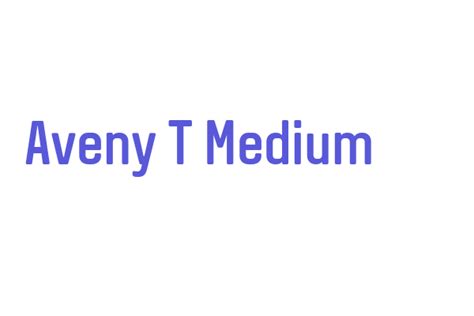
What is Aveny T Regular?
Let’s start by understanding what makes Aveny T Regular such a sought-after font. Aveny T Regular is a modern sans-serif typeface known for its clean lines, balanced proportions, and excellent readability. It’s a versatile font that works well in a variety of design applications, including branding, web design, and print materials. Its simplicity gives it a contemporary feel, making it a favorite among designers who aim for a minimalist yet impactful aesthetic. The font’s geometric structure ensures clarity and legibility, making it suitable for both headlines and body text. Aveny T Regular stands out because of its neutral yet sophisticated appearance, which allows it to blend seamlessly into various design contexts without overpowering the overall composition. Its adaptability makes it a go-to choice for projects that require a touch of modern elegance and functional design. Whether you’re designing a sleek website, a professional business card, or an engaging marketing brochure, Aveny T Regular provides a reliable and stylish typographic solution. The font’s carefully crafted letterforms offer a harmonious visual experience, contributing to a polished and cohesive design. Many designers appreciate its ability to maintain clarity even at smaller sizes, ensuring that the message remains clear and accessible across different media.
Key Characteristics of Aveny T Regular
• Clean and Modern: Aveny T Regular features clean lines and a modern aesthetic, making it suitable for contemporary designs.
• Excellent Readability: Its well-balanced letterforms ensure excellent readability, even in smaller sizes.
• Versatile: This font is incredibly versatile and can be used in various design applications, from branding to web design.
• Sans-Serif: As a sans-serif typeface, it offers a minimalist and uncluttered appearance, perfect for a wide range of projects.
Why Use Aveny T Regular?
Why should you even consider using Aveny T Regular in your design projects? Well, there are a bunch of compelling reasons. First off, its clean and modern aesthetic can instantly elevate the look and feel of your designs. Whether you’re working on a website, a logo, or a brochure, this font adds a touch of sophistication and professionalism. Plus, its excellent readability ensures that your message gets across clearly, no matter the size or medium. Aveny T Regular’s versatility is another major selling point. It works well in a variety of contexts, from headlines to body text, and can be paired with other fonts to create interesting typographic hierarchies. Its neutral appearance means it won’t clash with other design elements, making it a safe and reliable choice for any project. Furthermore, Aveny T Regular can help you create a consistent brand identity. Using the same font across all your marketing materials can reinforce your brand’s image and make it more recognizable. This consistency is crucial for building trust and credibility with your audience. The font’s minimalist design also makes it ideal for projects that require a clean and uncluttered look. If you’re aiming for a modern and streamlined aesthetic, Aveny T Regular is an excellent choice. Its simplicity allows the other elements of your design to shine, creating a harmonious and balanced composition. Ultimately, Aveny T Regular is a practical and stylish font that can enhance the overall impact of your designs. Its blend of functionality and aesthetic appeal makes it a valuable asset for any designer.
Alternatives to Aveny T Regular
If you’re unable to find a free and legitimate version of Aveny T Regular, don’t worry! There are several excellent alternative fonts that offer a similar look and feel. These alternatives can provide the same modern, clean aesthetic without the need to compromise on quality or legality. One popular alternative is Montserrat, a sans-serif font that shares many of the characteristics of Aveny T Regular. Montserrat features clean lines, balanced proportions, and excellent readability, making it a versatile choice for various design projects. Another great option is Lato, a humanist sans-serif typeface known for its warm and friendly appearance. Lato is highly readable and works well in both headlines and body text, making it a suitable alternative for projects that require a touch of approachability. Open Sans is another widely used alternative, offering a clean and neutral design that is perfect for web and print applications. Open Sans is optimized for readability and performs well in various sizes and resolutions. If you’re looking for a more geometric sans-serif, consider using Futura. Futura features clean, geometric shapes and a modern aesthetic, making it a great alternative for projects that require a more structured and minimalist look. Another alternative to consider is Roboto, a versatile sans-serif font that is widely used in Android and other Google products. Roboto offers a balanced and readable design, making it suitable for both digital and print applications. By exploring these alternatives, you can find a font that closely matches the aesthetic of Aveny T Regular while ensuring that you’re using a legally and ethically sourced typeface. Each of these fonts offers unique characteristics and can be used to create a variety of different design styles, so experiment with them to find the perfect fit for your project.
Font Alternatives
• Montserrat: A popular sans-serif font with a similar modern aesthetic.
• Lato: A humanist sans-serif typeface known for its warm and friendly appearance.
• Open Sans: A clean and neutral font optimized for readability.
• Futura: A geometric sans-serif font with a modern and minimalist look.
• Roboto: A versatile sans-serif font widely used in digital applications.